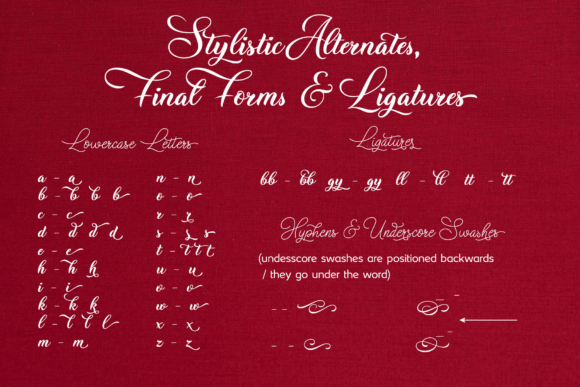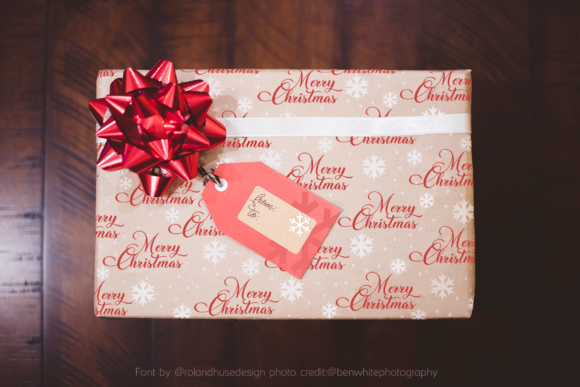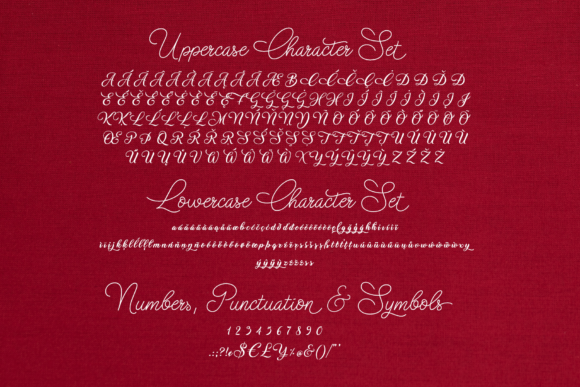
Introducing Christmas Wish Font: The Perfect Holiday Companion for Designers and Crafters
Are you looking for a font that will add a touch of magic to your holiday projects? Look no further than Christmas Wish Font! This gorgeous cursive brush font is designed in a calligraphy style, making it perfect for creating beautiful and eye-catching designs. In this article, we’ll take a closer look at Christmas Wish Font, its features, and how you can use it to make your holiday projects shine.
What is Christmas Wish Font?
Christmas Wish Font is a stunning cursive brush font that comes in two weights: a thin monoline and a brush calligraphic version. This versatility makes it suitable for a wide range of projects, from holiday cards and invitations to social media graphics and website headers. The font’s calligraphy style gives it a personal and elegant touch, making it perfect for designers and crafters who want to add a special something to their work.
Key Features of Christmas Wish Font
So, what makes Christmas Wish Font so special? Here are some of its key features:
- Two weights: The font comes in two weights: a thin monoline and a brush calligraphic version. This allows you to choose the perfect style for your project.
- Alternates and swashes: Christmas Wish Font includes amazing alternates and swashes that will add a touch of elegance and sophistication to your designs.
- Cursive brush style: The font’s cursive brush style gives it a personal and artistic feel, making it perfect for holiday projects.
- Calligraphy style: The font’s calligraphy style makes it suitable for creating beautiful and eye-catching designs.
How to Use Christmas Wish Font in Your Holiday Projects
Christmas Wish Font is perfect for a wide range of holiday projects, including:
- Holiday cards and invitations: Use Christmas Wish Font to create beautiful and elegant holiday cards and invitations.
- Social media graphics: Add a touch of magic to your social media graphics with Christmas Wish Font.
- Website headers: Use Christmas Wish Font to create stunning website headers that will make your website stand out.
- DIY projects: Christmas Wish Font is perfect for crafters who want to add a personal touch to their DIY projects, such as holiday decorations and gift tags.
Tips and Tricks for Using Christmas Wish Font
Here are some tips and tricks for using Christmas Wish Font in your holiday projects:
- Experiment with different weights: Try using both weights of Christmas Wish Font to create a unique and eye-catching design.
- Mix and match with other fonts: Combine Christmas Wish Font with other fonts to create a stunning and unique design.
- Use alternates and swashes: Don’t be afraid to experiment with the font’s alternates and swashes to add a touch of elegance and sophistication to your designs.
| Font Name | Christmas Wish Font |
| Author | Roland Hüse Design |
Christmas Wish Font is a gorgeous cursive brush font that is perfect for designers and crafters who want to add a touch of magic to their holiday projects. With its two weights, alternates, and swashes, this font is sure to bring your designs to life. Whether you’re creating holiday cards, social media graphics, or DIY projects, Christmas Wish Font is the perfect companion for the holiday season.